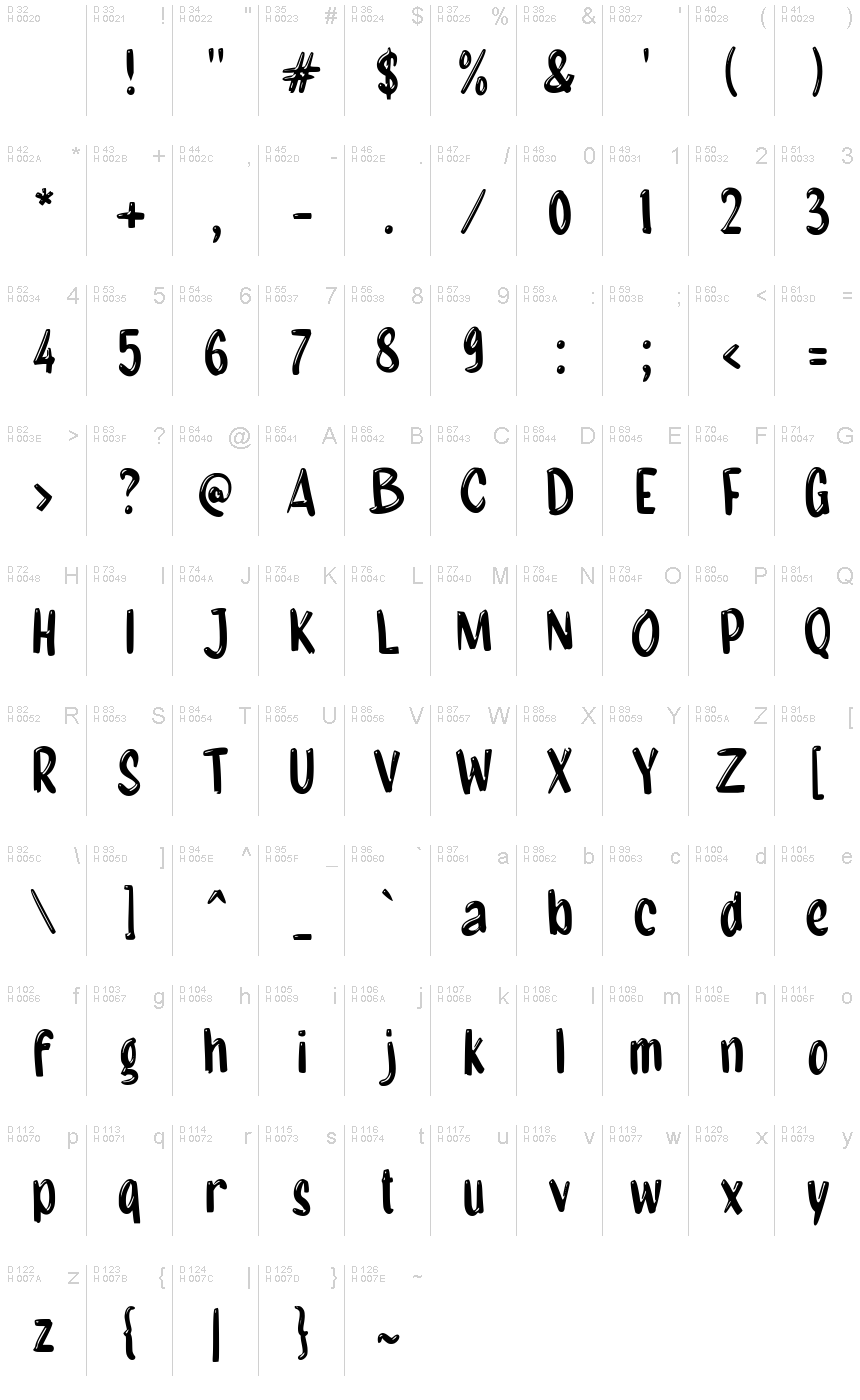
Fase Bulan
Fase Bulan, a captivating display font crafted by designer wep, exudes a whimsical, cartoon-inspired aesthetic. Its playful letterforms, with their rounded edges and quirky flourishes, evoke a sense of playfulness and lightheartedness. The font's distinctive style adds a touch of charm and character to any design, making it a standout choice for projects requiring a touch of personality and visual appeal.
This versatile font can elevate a wide range of design projects, from playful branding and marketing materials to attention-grabbing headlines and engaging packaging designs. Its unique personality lends itself well to children's books, greeting cards, and other creative applications where a touch of whimsy and fun is desired. Fase Bulan's versatility and striking visual presence make it a captivating choice for designers seeking to infuse their work with a delightful, memorable flair.